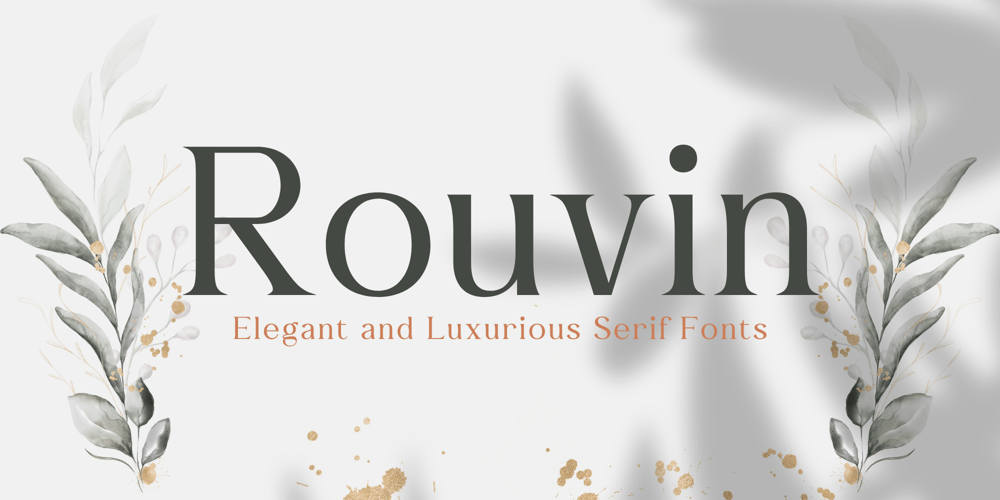
Rouvin Font Family was designed by Candi Erwanto and published by Objectype. Rouvin contains 1 styles and family package options. Font Rouvin is a serif font designed by Candi Erwanto and produced by Objectype. This font is suitable for minimalist, luxurious, feminine, and elegant designs. This font can be used for various types of designs, such as logo design, packaging design, poster design, and so on. This font has ligature and alternative glyph features that allow for more interesting and unique characters. In addition, this font is also multilingual, so it can be used in various languages.